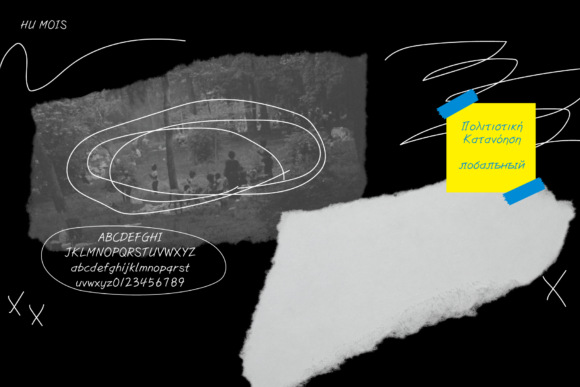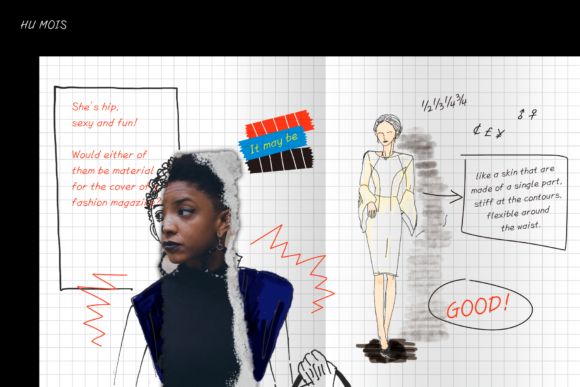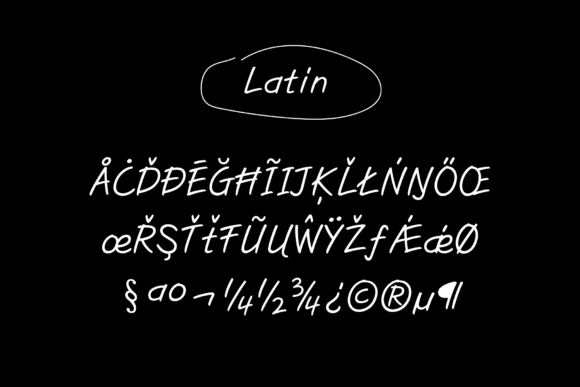
Introduction to Hu Mois Font
There’s something magical about capturing a moment on paper – a spark of creativity that ignites as you jot down ideas, sketch out designs, and bring a project to life. For designers, this moment is often a high-quality snapshot of a creative process in full swing. One essential design resource that can help you replicate this feeling is the Hu Mois Font.
With its natural, handwritten feel and speedy tilt, the Hu Mois Font is perfect for those seeking an informal, yet elegant look for their creative projects. Whether you’re working on a design, writing a blog post, or crafting a presentation, this font can add a touch of personality and whimsy to your work.
As a free download, the Hu Mois Font is an invaluable addition to any designer’s toolkit, allowing you to experiment with different styles and effects. Its transparent background makes it easy to layer over images or use as a standalone element, making it a versatile design resource for any creative project.
Key Features of Hu Mois Font
- Unique, hand-drawn font with a transparent background, ideal for adding a personal touch to designs
- Perfect for designers looking for a free, high-quality font to enhance their creative projects
Honest Review: Hu Mois Font
As a designer, I’m always on the lookout for high-quality design resources to elevate my creative projects. Recently, I had the chance to work with the Hu Mois Font, and I’m excited to share my honest review.
Here are some things that work well: ✨ The Hu Mois Font has a unique, modern design that’s perfect for digital projects. The transparent background makes it easy to use on any background image or color. The font is also highly customizable, allowing me to adjust the size, color, and style to suit my design needs.
Here are some limitations I encountered: ⚠️ While the Hu Mois Font is free to download, the font library is relatively small, which may limit its usability for complex projects. Additionally, the font may not be suitable for print projects, as it’s designed specifically for digital use.
Overall, I’m impressed with the Hu Mois Font’s versatility and ease of use. It’s a great resource for designers working on digital projects, and I would definitely recommend it for free download. However, if you’re looking for a more extensive font library or print-specific fonts, you may want to explore other options.
- Unique, modern design
Hu Mois Font is suitable for a variety of creative projects, including logos, graphics, and typography-based designs. Its unique design and transparent background make it an ideal choice for designers looking to add a touch of sophistication to their work.